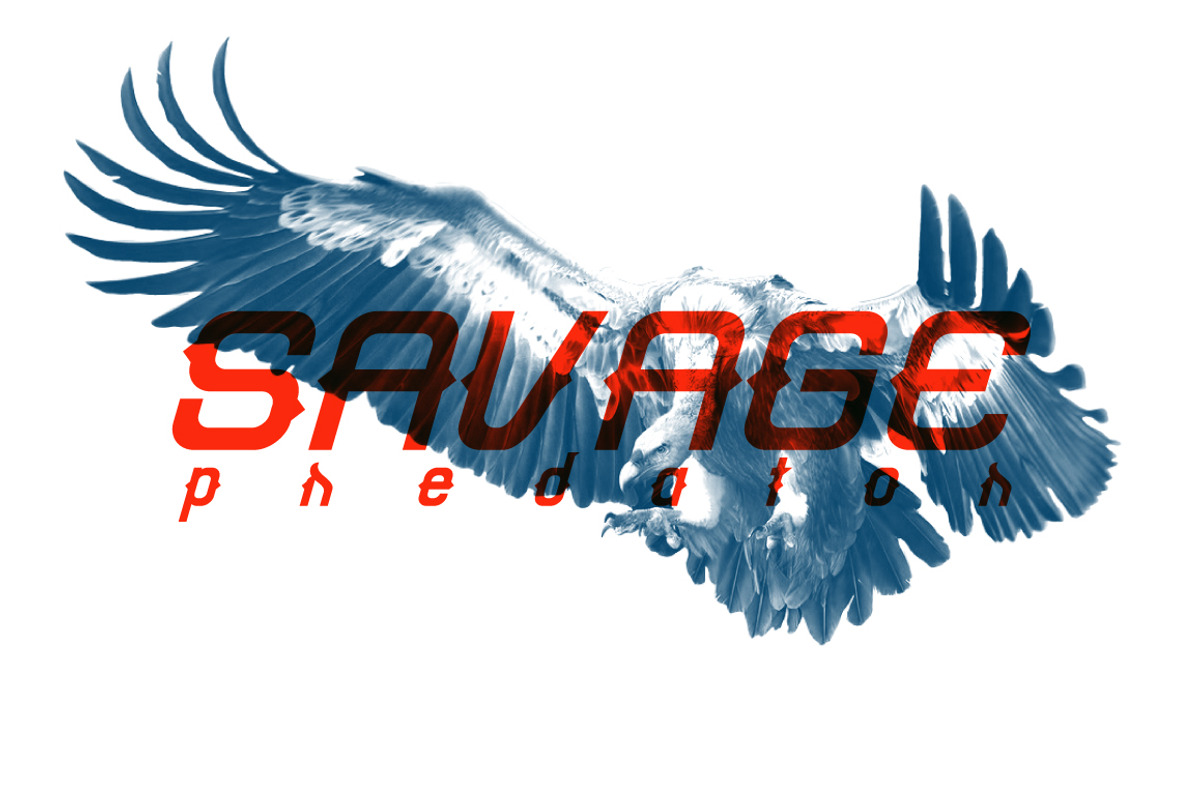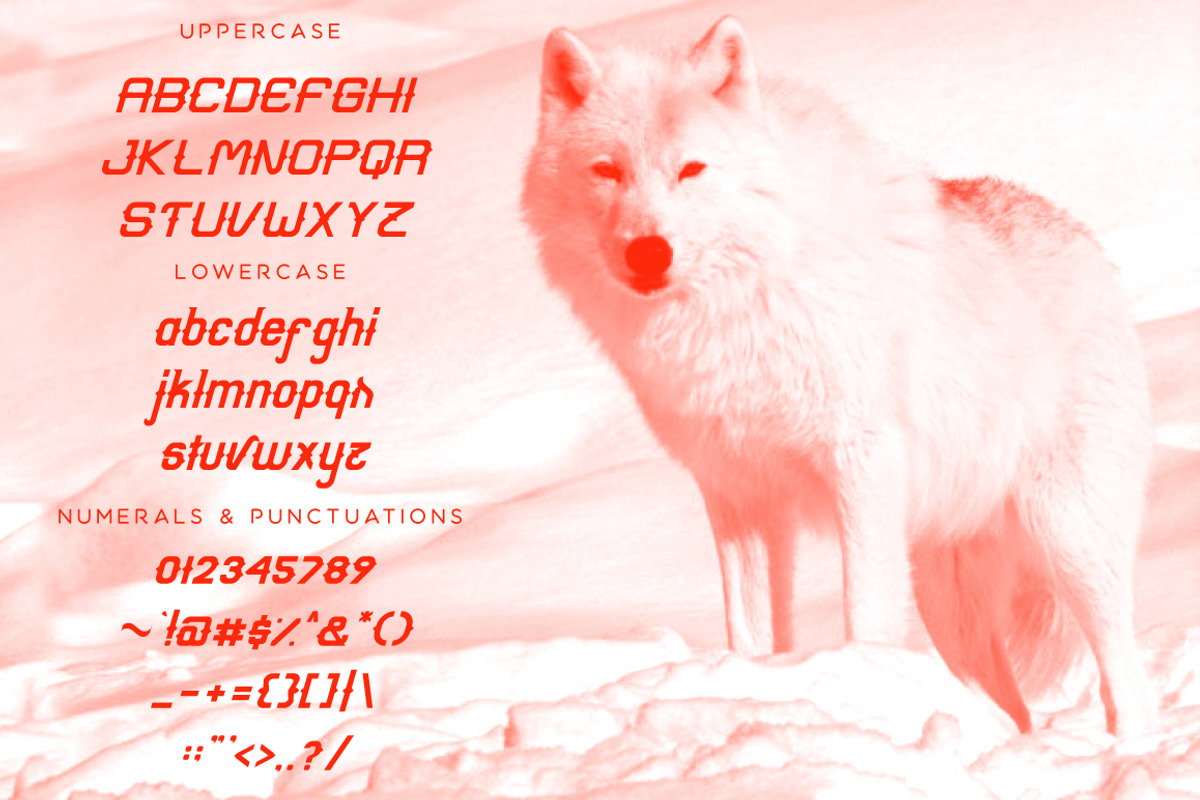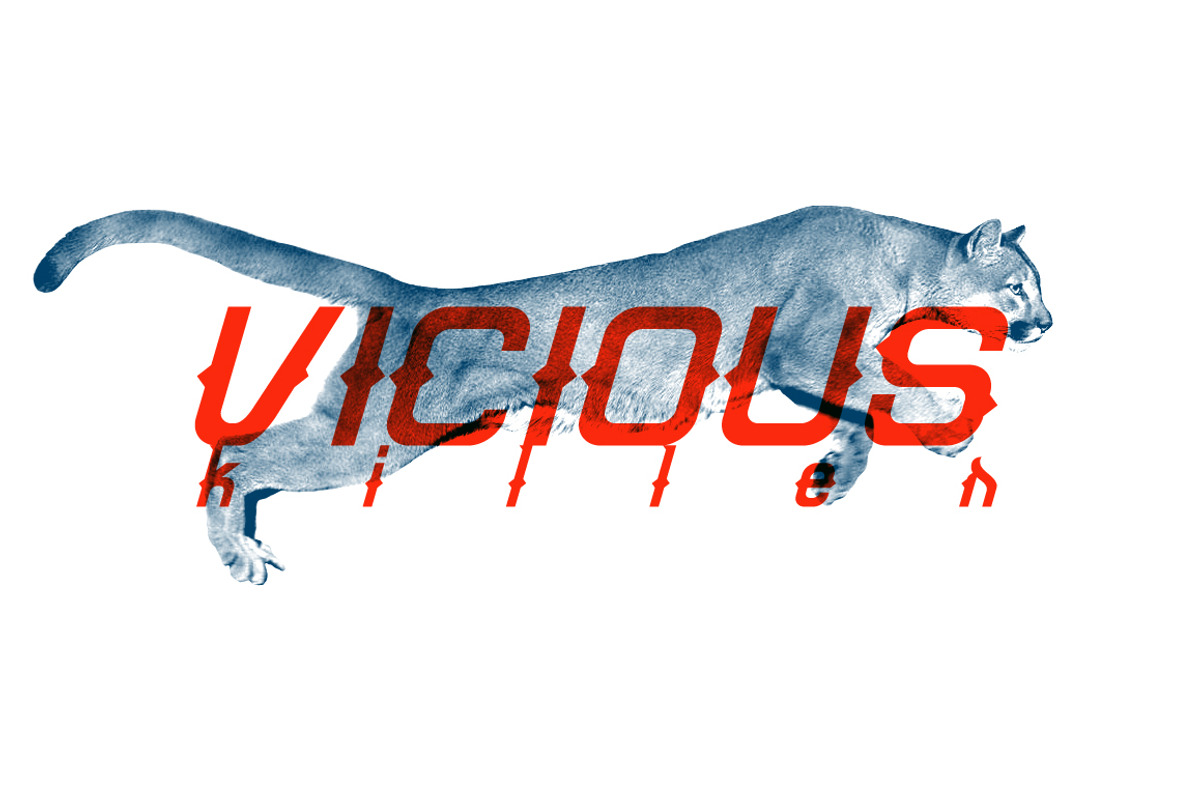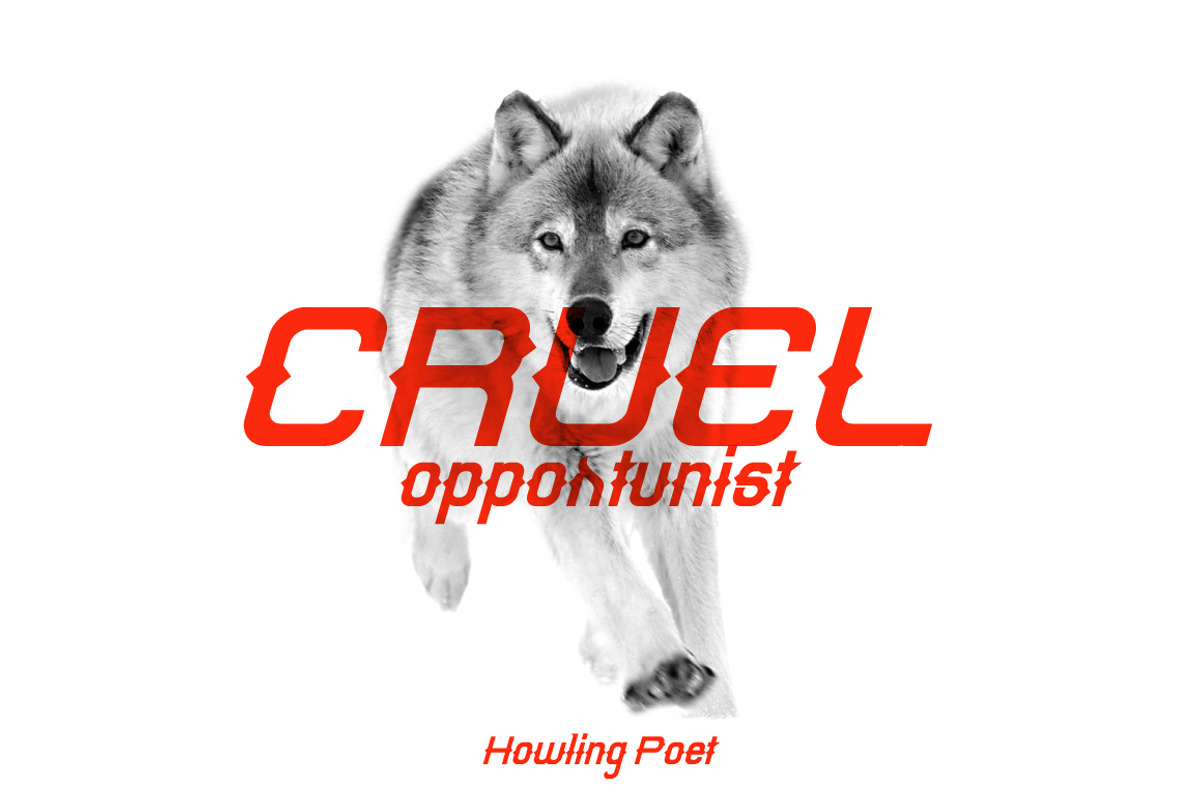
Grotesque Font
Grotesque Font by Kreasi Malam is a font selected for branding, posters, packaging, typography.
- Available in uppercase, lowercase, numerals and punctuations.
Why Grotesque Font is worth a look
Grotesque Font by Kreasi Malam fits naturally into Branding, posters, packaging, typography.